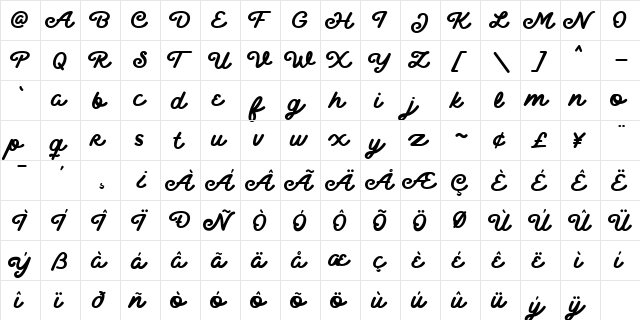
Delichia Script DEMO Regular
Design Context for Delichia Script DEMO Typeface
Delichia Script DEMO brings a calligraphic fluidity to the page — its connecting strokes and expressive curves give it an unmistakably human quality.